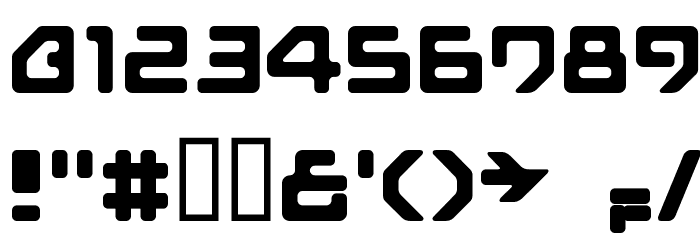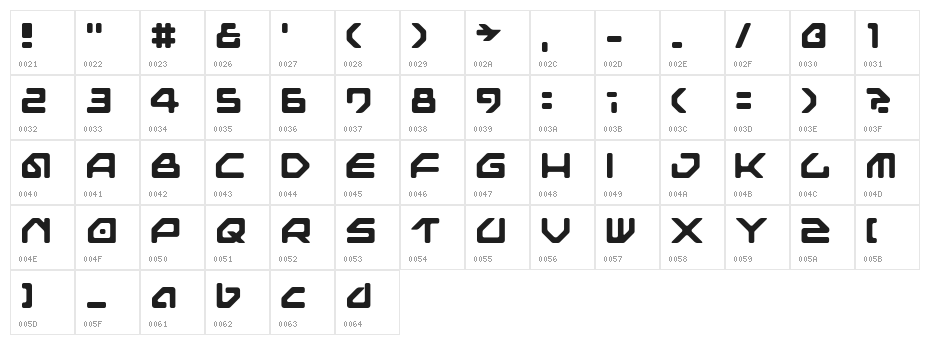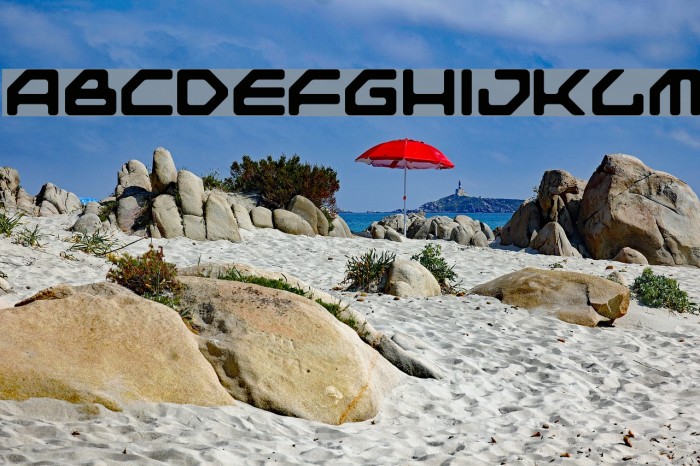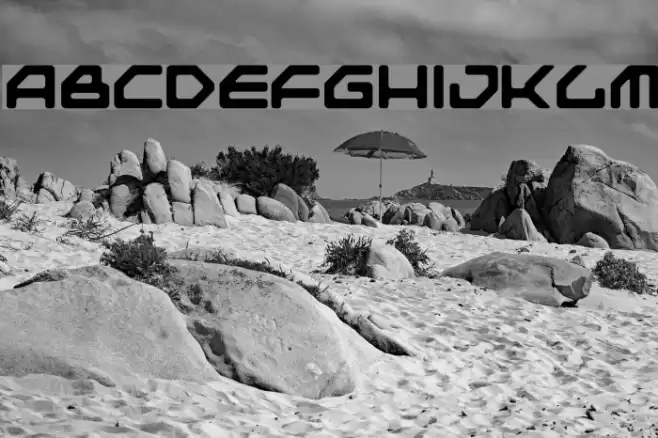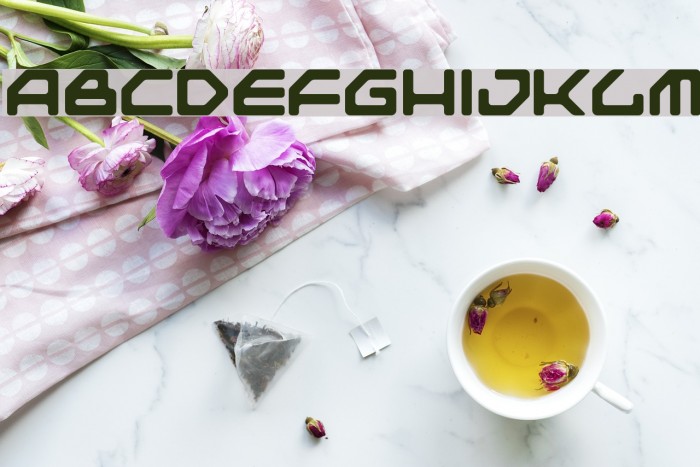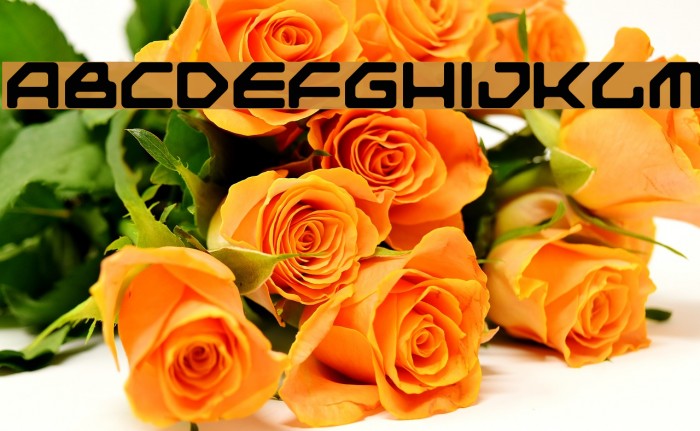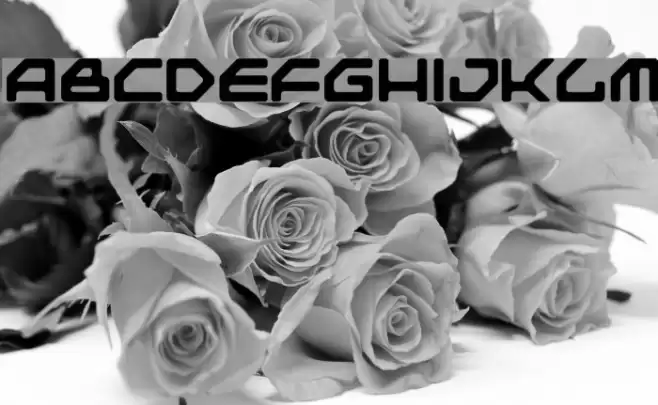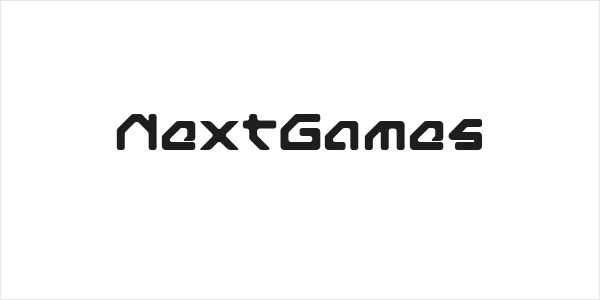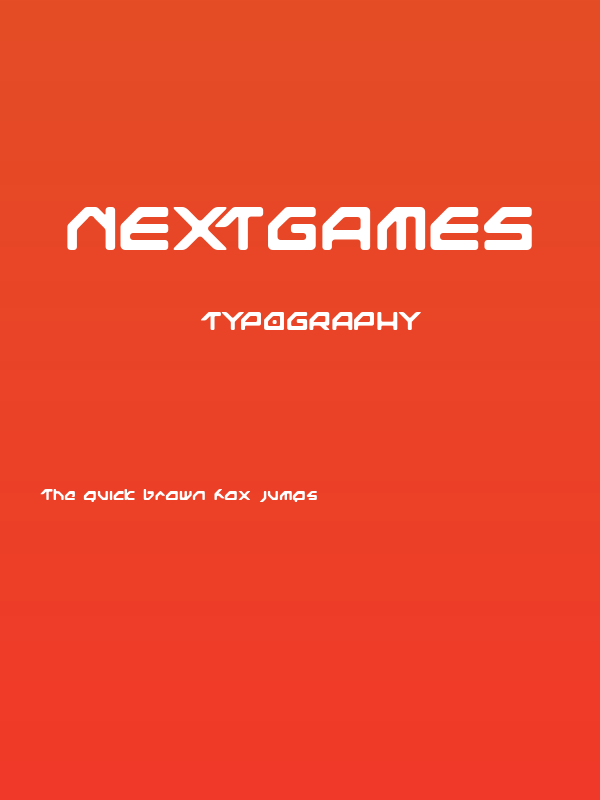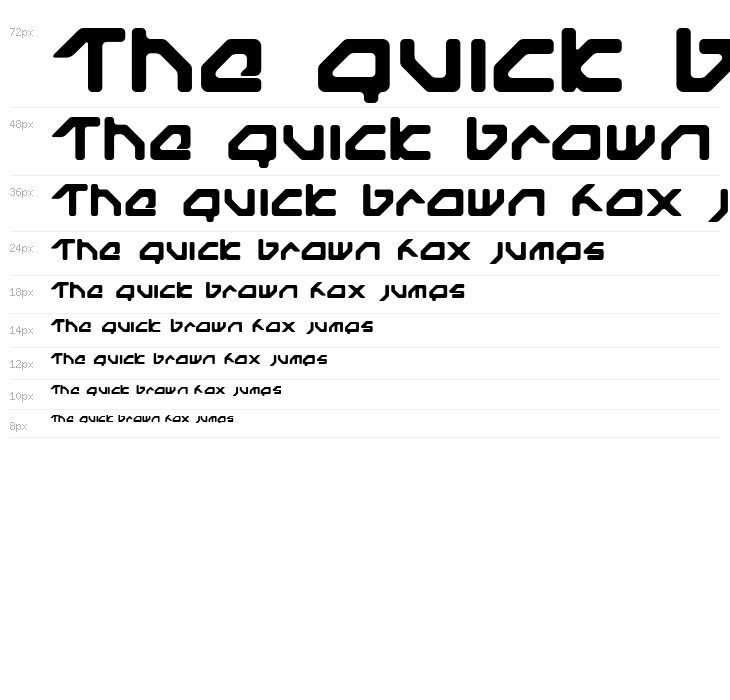
NextGames Font
NextGames Description
This font features a futuristic and geometric design, characterized by its bold and rounded edges. The letters are constructed with a consistent thickness, creating a uniform appearance that is both modern and dynamic. The uppercase and lowercase letters maintain a cohesive style, with angular cuts and smooth curves that add a sense of movement and energy. The numbers and special characters follow the same design principles, ensuring a seamless integration across all glyphs. This font's unique style makes it stand out, ideal for projects that require a contemporary and tech-savvy look.
| Proposed Projects | Ideal for technology branding, video game titles, sci-fi posters, and digital interfaces. |